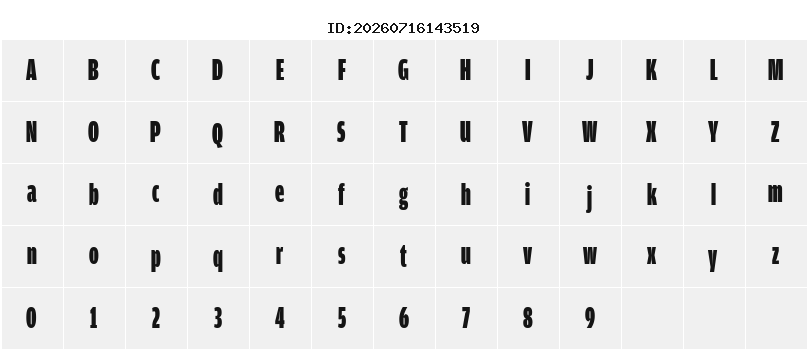
• Font Name: AmplitudeExtraComp-Ultra
• Font ID: TheFontBureau,Inc: AmplitudeExtraComp-Ultra: 2003
• Full Font Name: AmplitudeExtraComp-Ultra
• PostScript Name: AmplitudeExtraComp-Ultra
• Designer: Christian Schwartz
• Manufacturer: The Font Bureau, Inc
About AmplitudeExtraComp-Ultra.ttf
AmplitudeExtraComp-Ultra.ttf is a modern, elegant sans-serif font designed for ultimate readability and visual harmony. Perfect for branding, headlines, web design, and print materials.